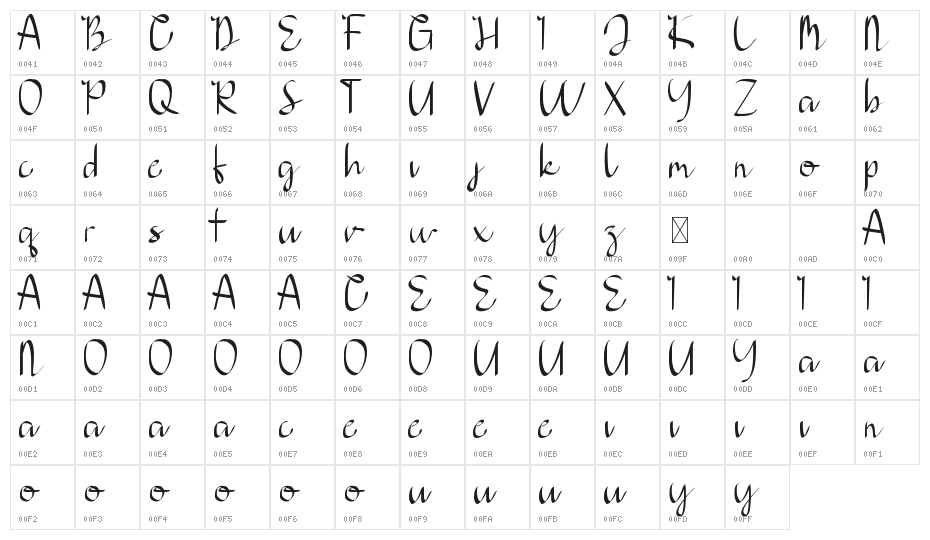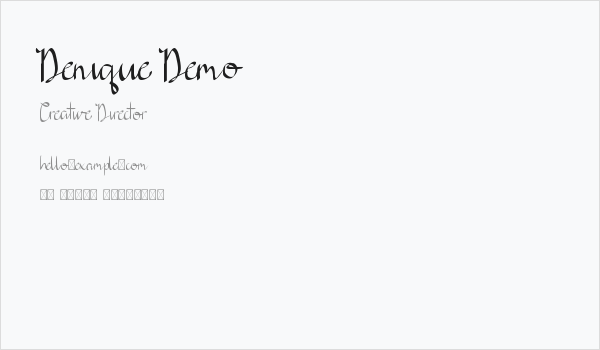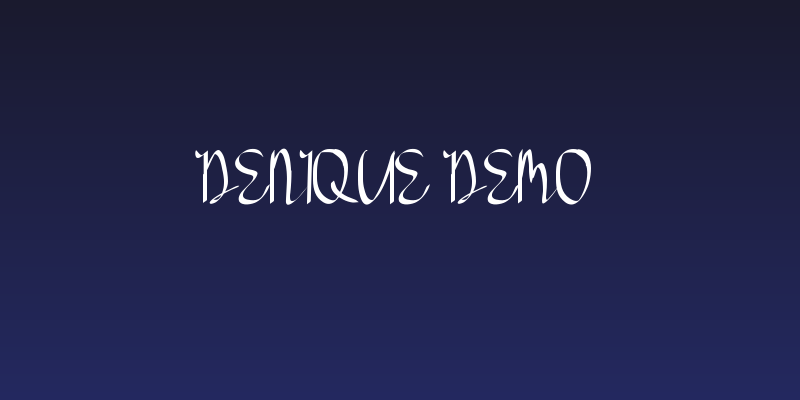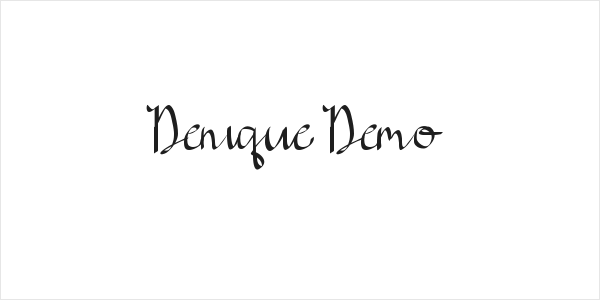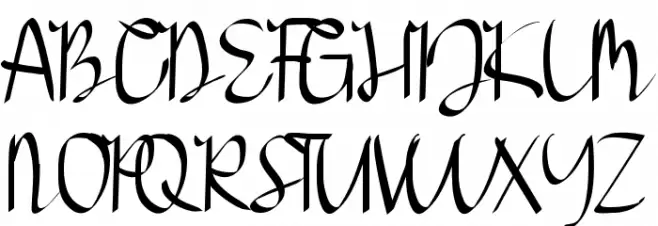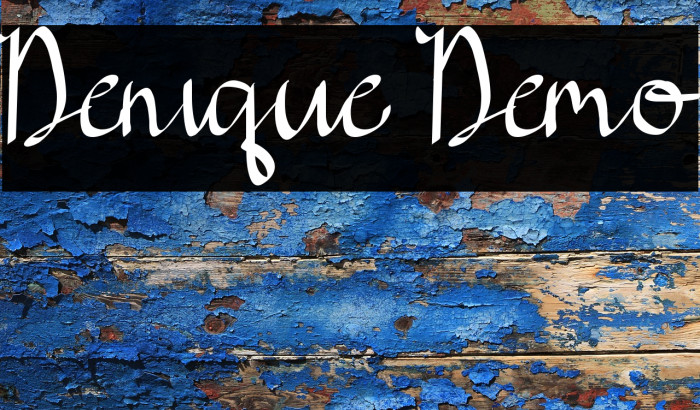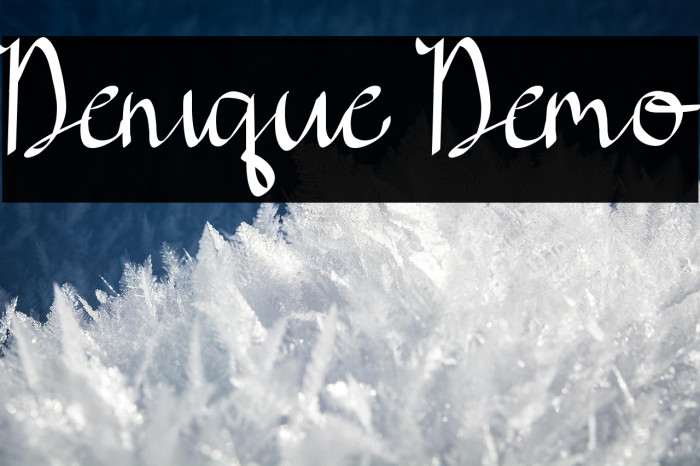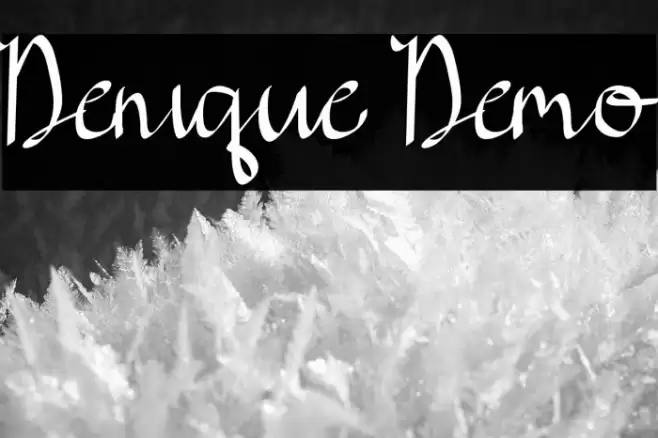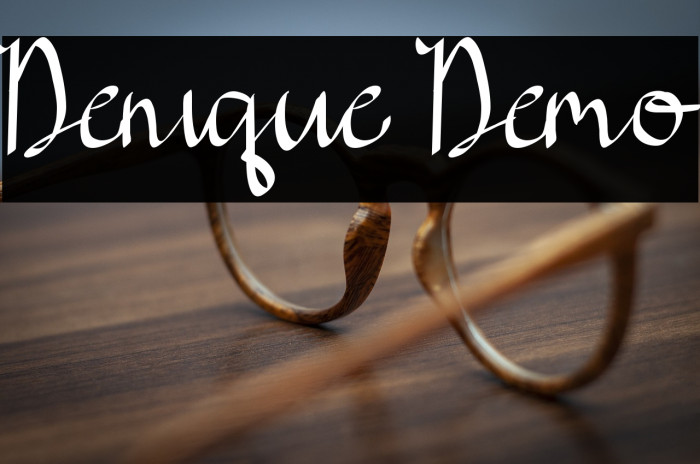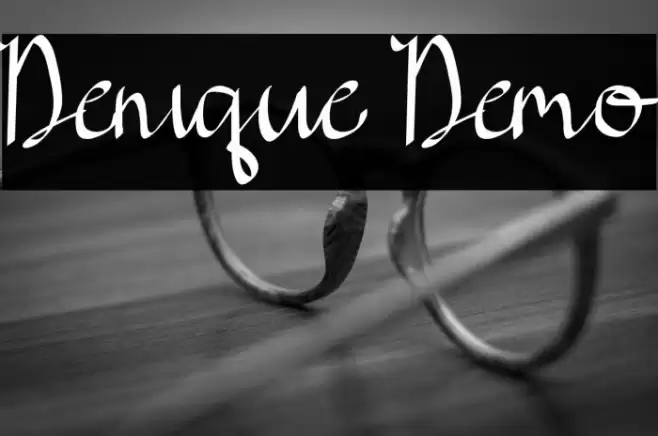
Denique Demo Font
Denique Demo Description
This font exhibits a dynamic and flowing script style, characterized by its elegant and cursive letterforms. The strokes are smooth and connected, giving it a handwritten appearance that exudes sophistication and charm. The uppercase letters are bold and sweeping, while the lowercase letters maintain a consistent fluidity, enhancing readability. The font's design is both artistic and functional, making it suitable for a variety of creative projects. Its unique style is perfect for adding a personal touch to invitations, greeting cards, or branding materials. The font's overall aesthetic is modern yet timeless, appealing to those who appreciate a blend of classic script with contemporary flair.
| Use Case | Logos, Headlines, Decorative text |
| Proposed Projects | Ideal for invitations, greeting cards, branding, and artistic projects. |